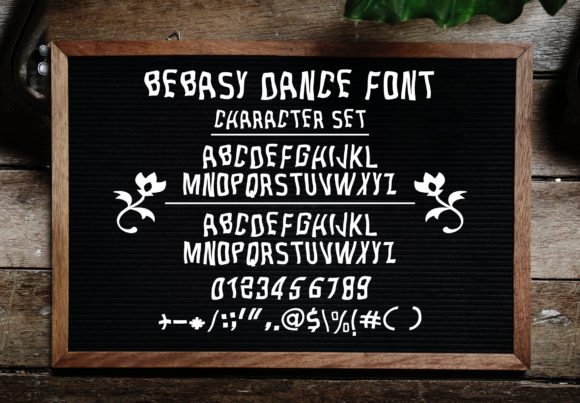
Bebasy Dance Font: Adding a Playful Touch to Your Designs
Are you looking for a font that can add a playful and carefree touch to your designs? Look no further than the Bebasy Dance font. This wild and tall sans serif font is perfect for designers and crafters who want to add a bit of whimsy to their work. In this article, we’ll take a closer look at the Bebasy Dance font, its features, and how you can use it to elevate your designs.
What is Bebasy Dance Font?
The Bebasy Dance font is a bold, sans serif font with an uneven, handwritten style. It’s a cool and quirky font that’s perfect for adding a playful touch to your designs. The font’s tall and slender characters give it a unique and eye-catching appearance that’s sure to grab attention.
Key Features of Bebasy Dance Font
So, what makes the Bebasy Dance font so special? Here are some of its key features:
• Bold and playful style: The Bebasy Dance font has a bold and playful style that’s perfect for designs that need a bit of personality.
• Uneven characters: The font’s uneven characters give it a handmade, imperfect feel that’s perfect for adding a touch of whimsy to your designs.
• Sans serif: The Bebasy Dance font is a sans serif font, which means it doesn’t have any decorative lines or flourishes.
• Tall and slender characters: The font’s tall and slender characters make it perfect for headlines, titles, and other design elements that need to stand out.
How to Use Bebasy Dance Font in Your Designs
The Bebasy Dance font is a versatile font that can be used in a variety of designs, from playful and fun to more serious and professional. Here are some ideas for using the Bebasy Dance font in your designs:
• Headlines and titles: The Bebasy Dance font is perfect for headlines and titles that need to grab attention.
• Playful posters and flyers: The font’s playful style makes it perfect for posters and flyers that need to stand out.
• Social media graphics: The Bebasy Dance font is perfect for social media graphics that need to be eye-catching and engaging.
• Branding and packaging: The font’s unique style makes it perfect for branding and packaging designs that need to stand out.
Tips for Using Bebasy Dance Font
Here are some tips for using the Bebasy Dance font in your designs:
• Use it sparingly: The Bebasy Dance font is a bold font, so it’s best to use it sparingly to avoid overwhelming your design.
• Pair it with a neutral font: Pair the Bebasy Dance font with a neutral font to create contrast and add visual interest to your design.
• Experiment with colors: The Bebasy Dance font looks great in bold, bright colors, so don’t be afraid to experiment and find the perfect color for your design.
Font Name Bebasy Dance Font
Author Laks Mi
The Bebasy Dance font is a unique and playful font that’s perfect for designers and crafters who want to add a bit of whimsy to their work. With its bold style, uneven characters, and tall, slender characters, it’s a font that’s sure to grab attention. Whether you’re designing a playful poster, a social media graphic, or a branding campaign, the Bebasy Dance font is a great choice. So why not give it a try and see how it can elevate your designs?